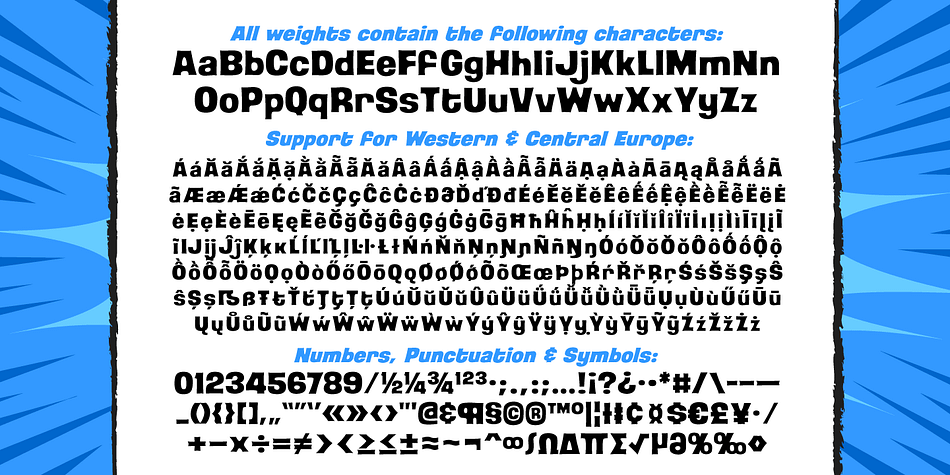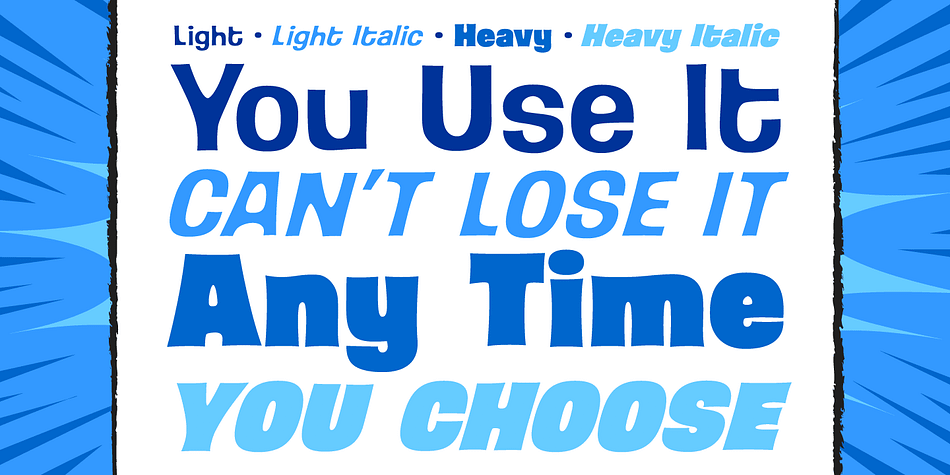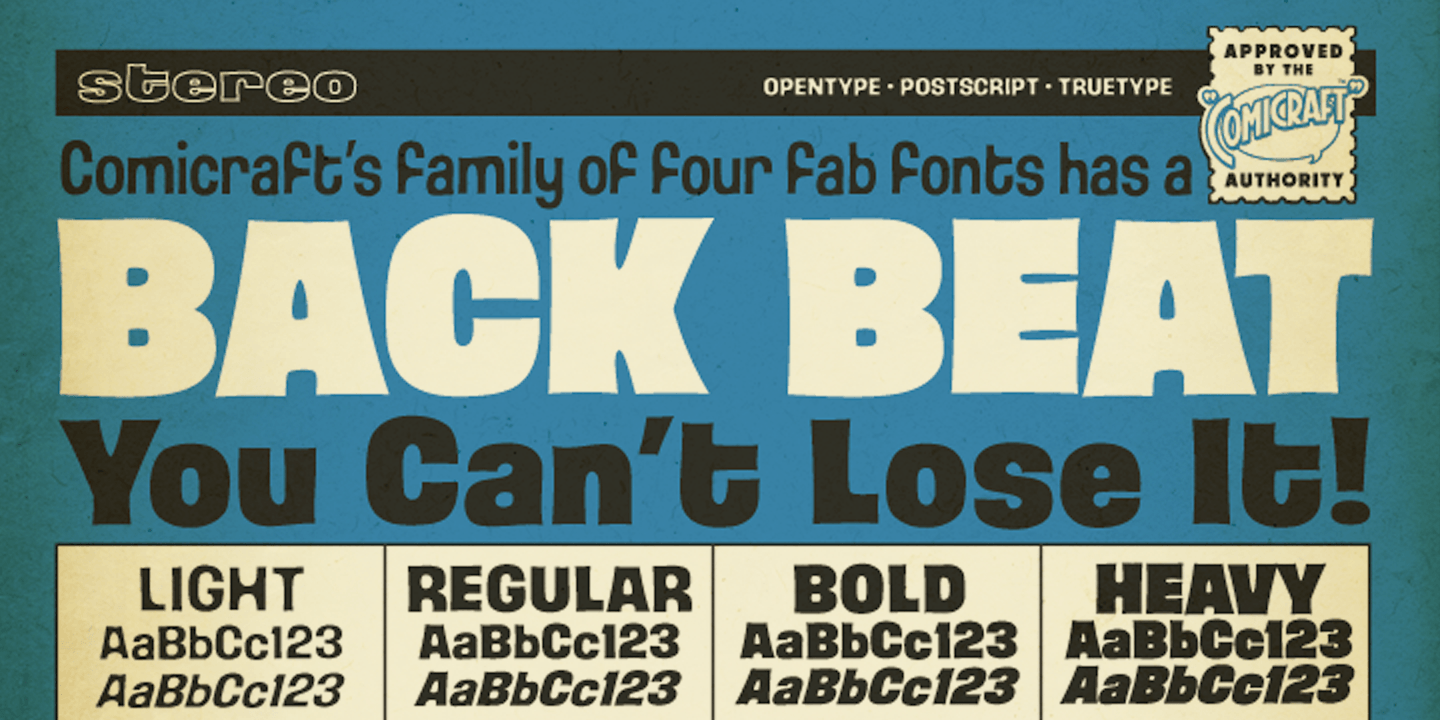
Designed by John Roshell, Back Beat is a display sans font family. This typeface has eight styles and was published by Comicraft.
You’ll have to admit this is a rocking font, man. It’s Fab AND Gear. Not only that, it’s called BackBeat and it’s GOT a backbeat—you can’t lose it (not if you back up all your data on a hard drive stored at a separate facility), any old way you choose it (Opentype, PostScript or TrueType). Yes, it’s just gotta be Comic Book Fonts, if you want to dance with the folks who got all shook up about these kind of things. Yeah.